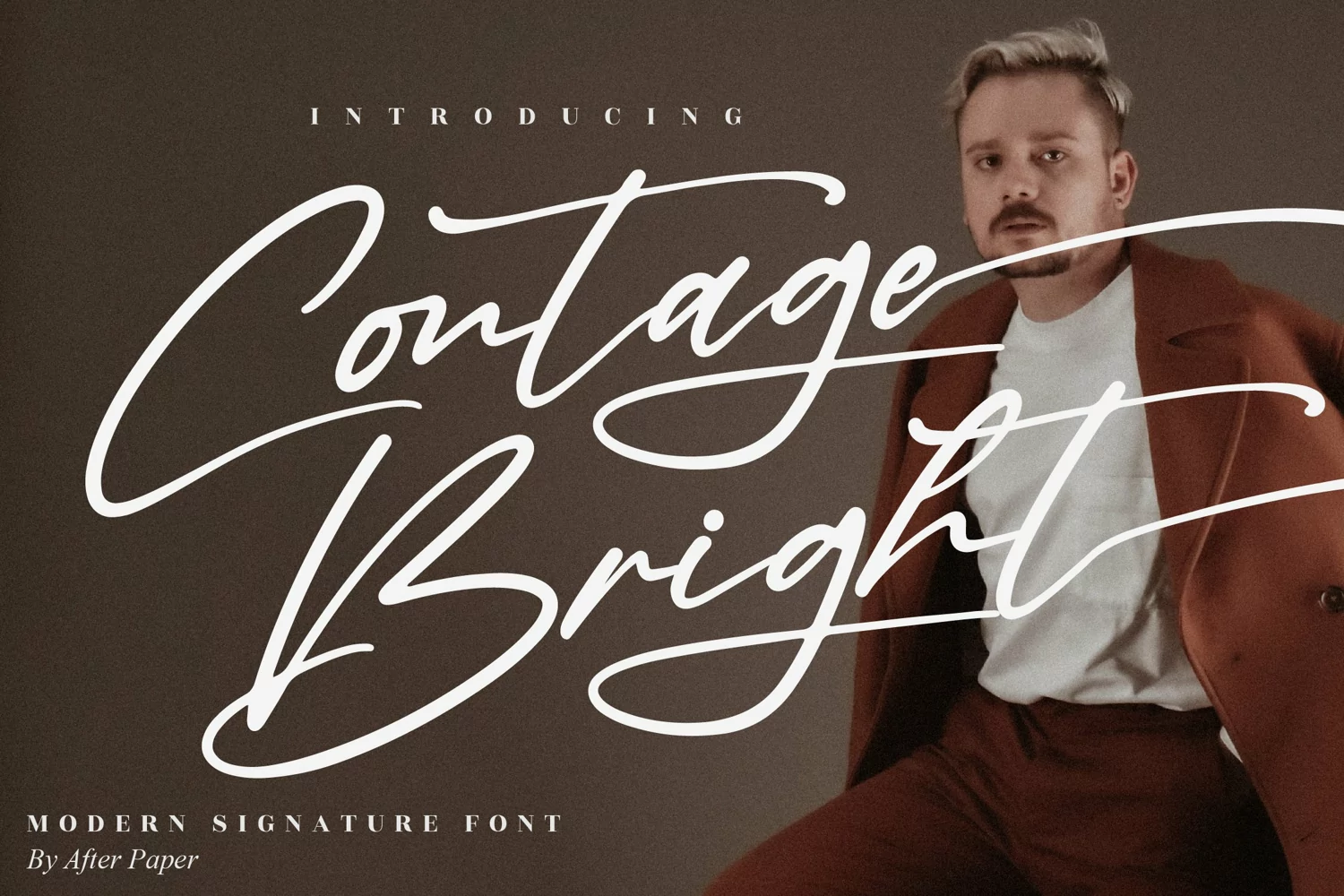
Contage Bright – Modern Signature Font, from Afterpaper Studio, is a beautiful script font, suitable for any projects such as: logos, branding projects, homeware designs, product packaging, mugs, quotes, posters, shopping bags, t-shirts, book covers, name card, invitation cards, greeting cards, label, photography, watermark, special events, and all your other lovely projects that need a beautiful script taste.